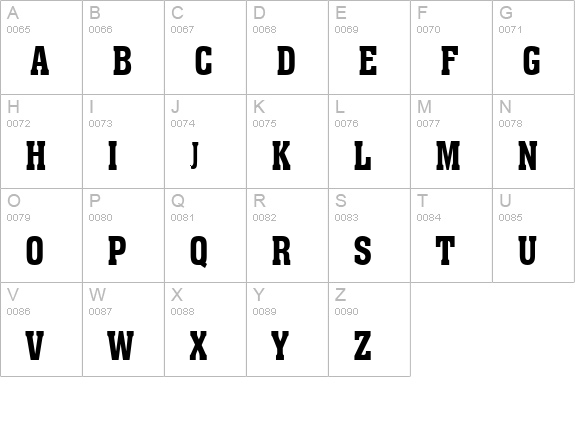
Ache Condensed Bold Font Details
Ache Condensed Bold is a strong, high-contrast, condensed-width variant in the Ache typeface family \xE2\x80\x94 well suited to headlines, attention-grabbing titles, and strong calls-to-action.
Ache Condensed Bold font is a striking and modern typeface that exudes confidence and strength. Its bold and condensed design makes it perfect for headlines, titles, and other attention-grabbing text. The sleek lines and sharp angles give this font a contemporary edge, making it a popular choice for design projects that require a bold statement. Best of all, Ache Condensed Bold font is available for free download at FontsMarket.com. This means you can easily access this stylish and versatile font to enhance your creative projects without any cost. Whether you're working on branding materials, posters, or web design, Ache Condensed Bold font is sure to make a bold impact and elevate your work to the next level. Download it today and add a touch of modern sophistication to your designs.